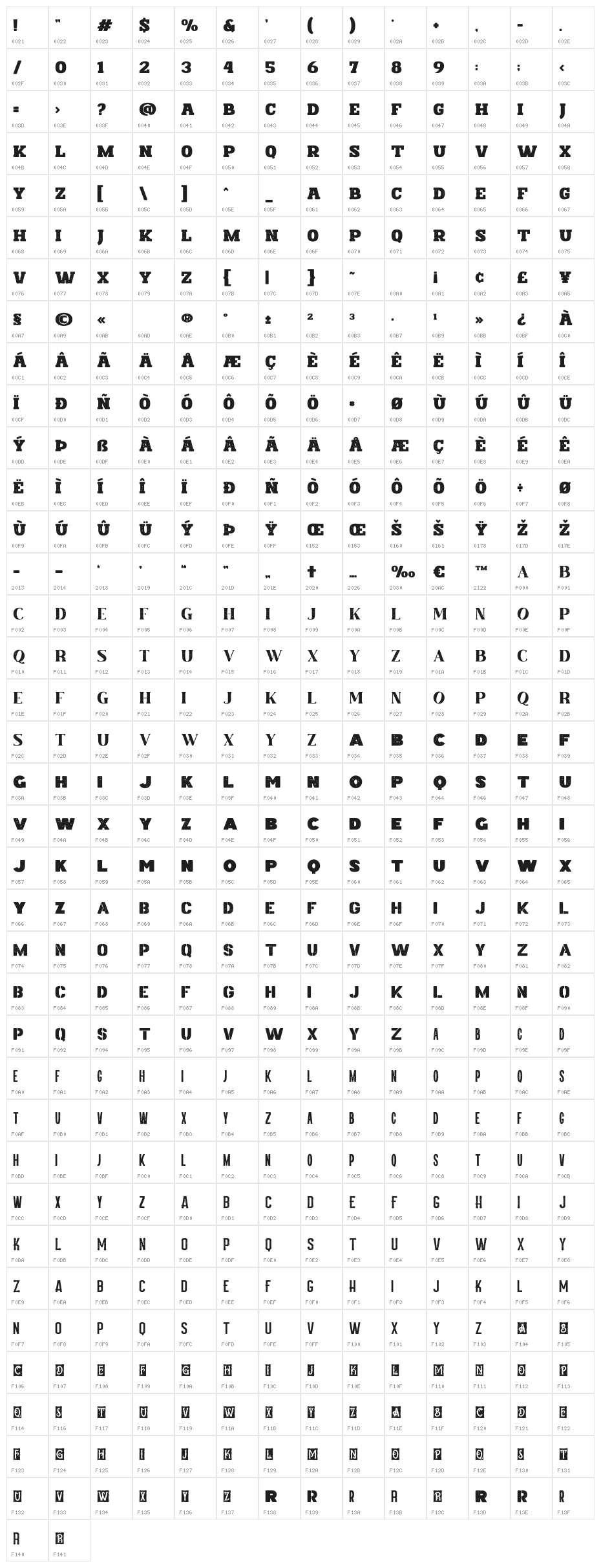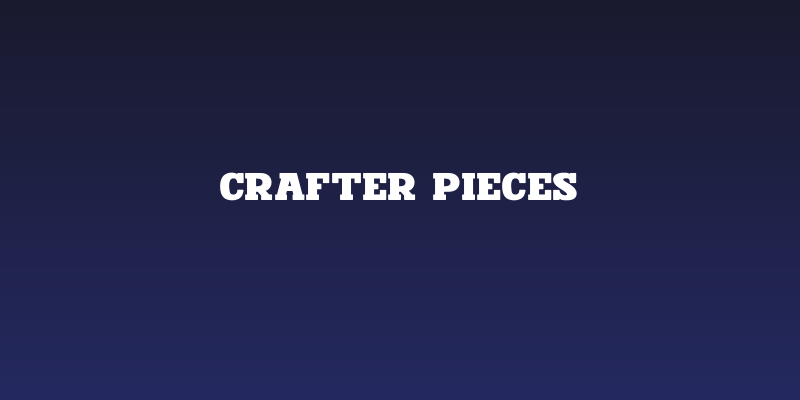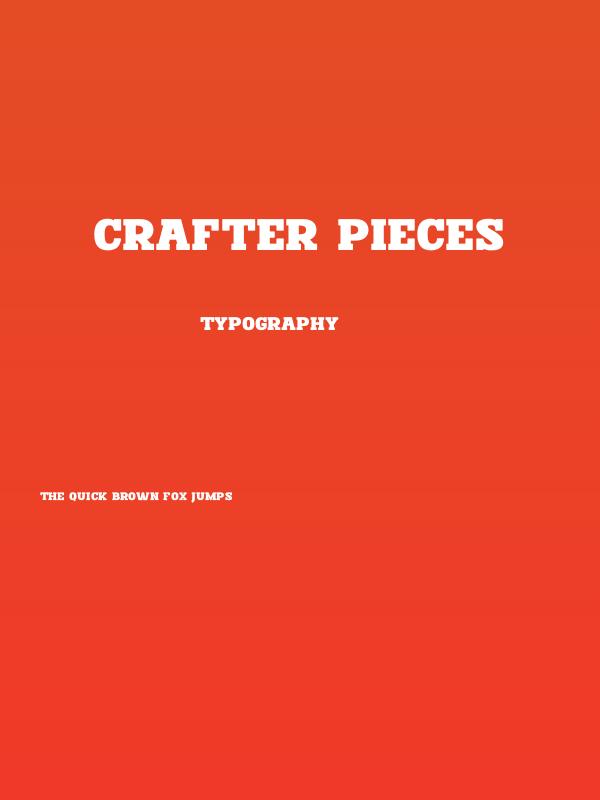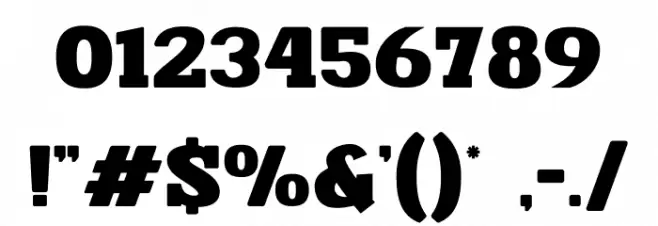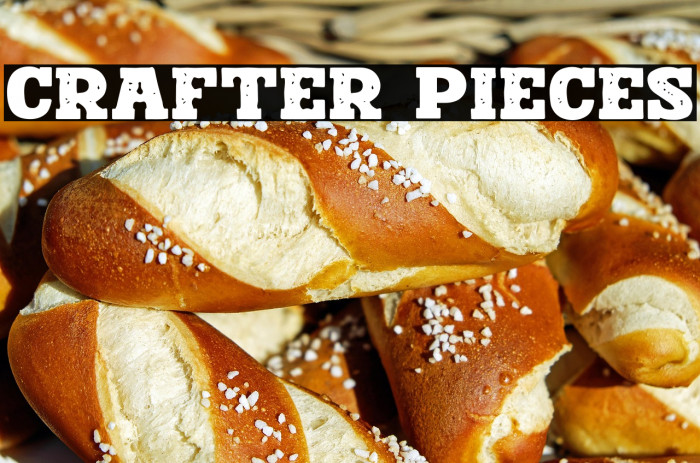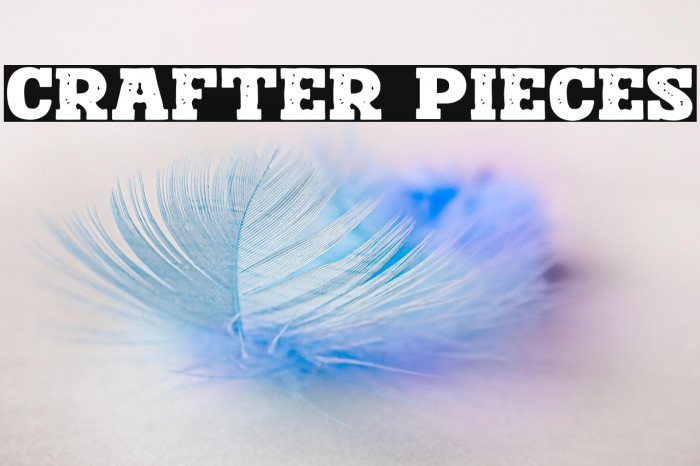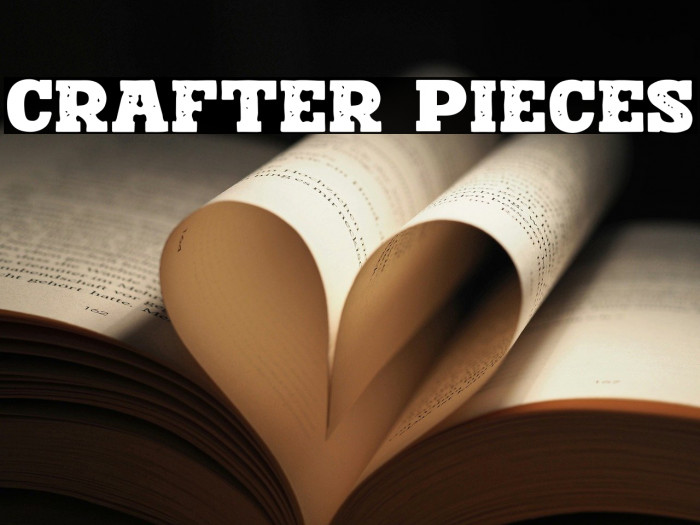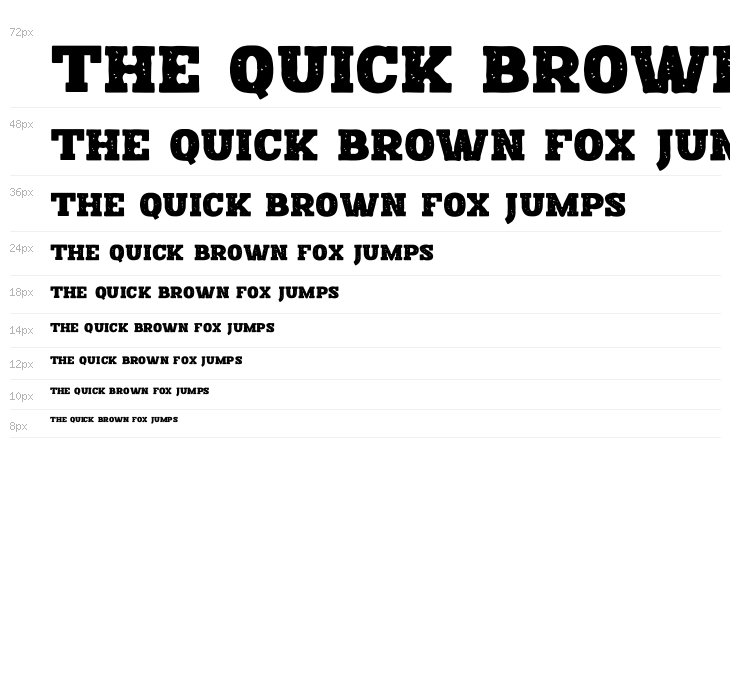
Crafter Pieces Font
Crafter Pieces Description
This bold and impactful font features a strong slab serif style with a distressed texture, giving it a rugged and vintage appearance. The uppercase letters are prominent and commanding, while the numerals and special characters maintain the same boldness and texture. The font's design is reminiscent of old western or industrial themes, making it ideal for projects that require a touch of nostalgia or a gritty aesthetic. The characters are evenly spaced, ensuring readability despite the textured effect. This font is perfect for creating eye-catching headlines, posters, or branding materials that need to convey strength and character.
| Proposed Projects | Ideal for vintage-themed posters, branding, logos, and headlines that require a strong, nostalgic feel. |